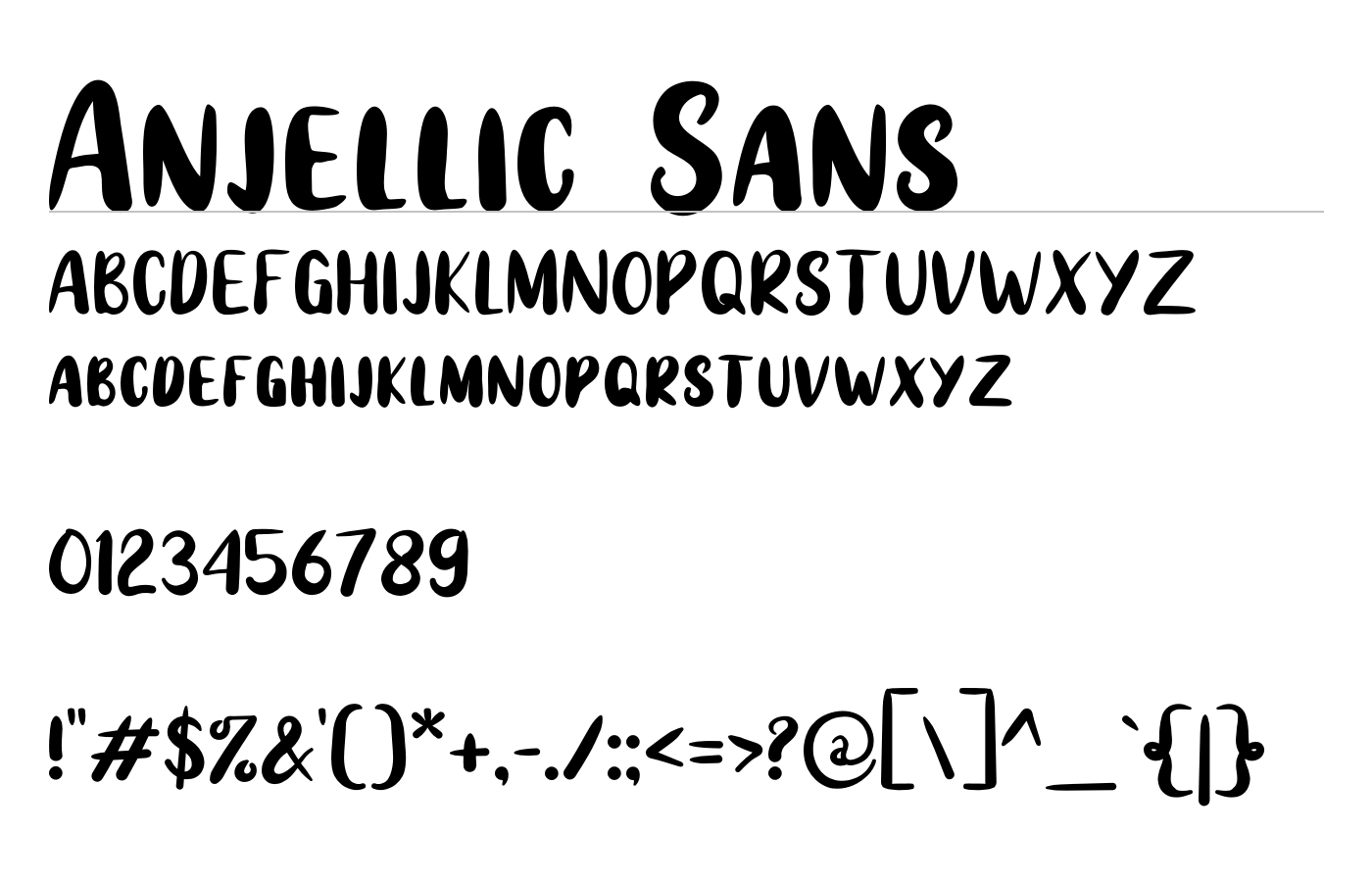
Anjellic Sans is a playful and casual sans serif font with a hand-drawn feel, featuring moderately bold, rounded strokes and a lively, slightly uneven texture that adds warmth and personality. Its tall x-height and friendly letterforms make it ideal for informal branding, children’s content, and creative projects where approachability and fun are key. This font works well in headlines, posters, and packaging that seek a spontaneous, handmade look.
Anjellic Sans Font
About Anjellic Sans Font
| Font family | Anjellic Sans Font |
| Designer | Bluestudio |